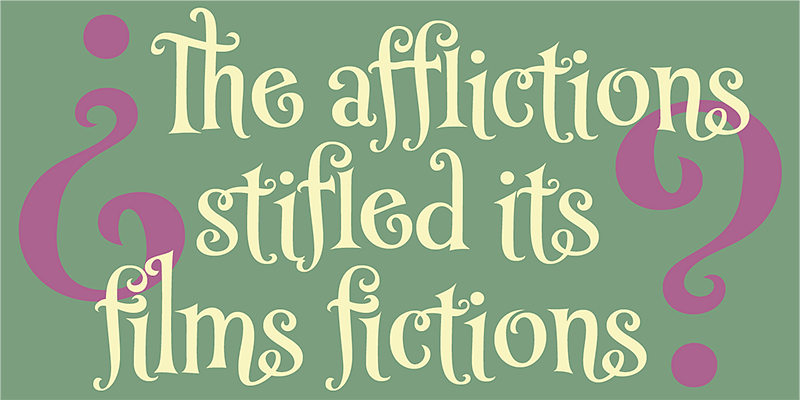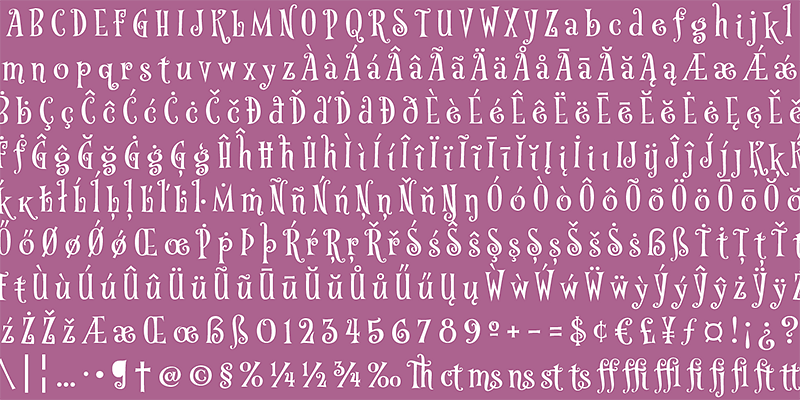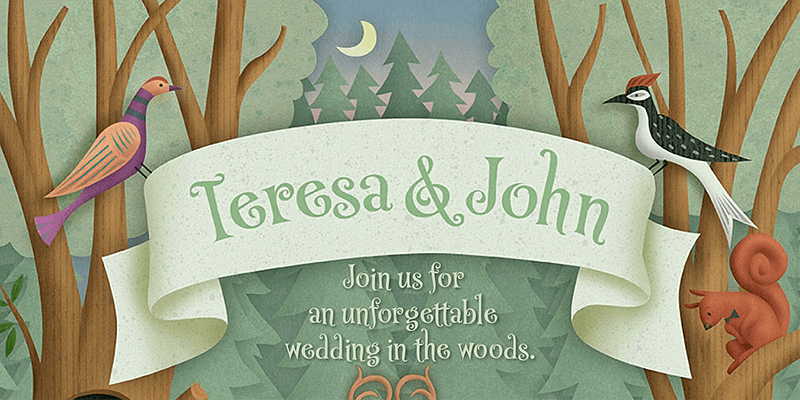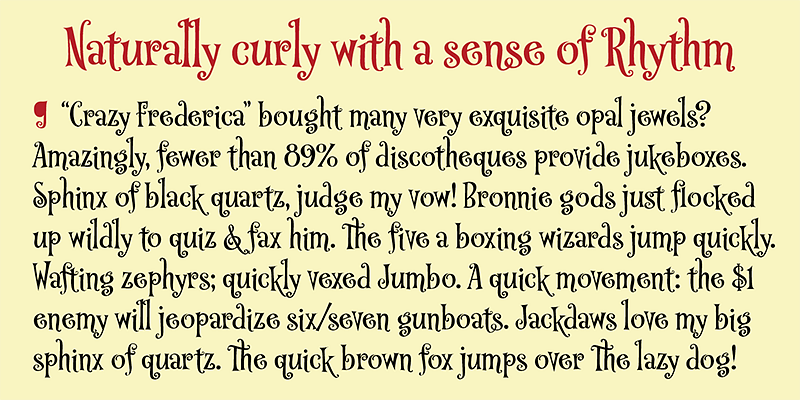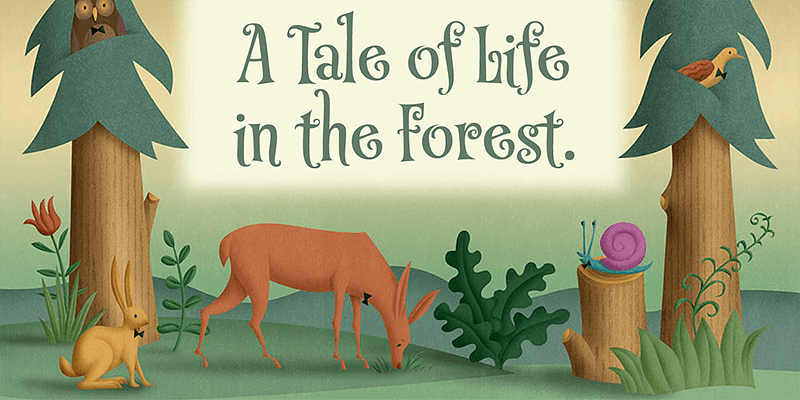
P22 Muschamp Pro is a loopy, bouncy, free-form alphabet adaptable for many uses. Carefree, playful, rhythmic and versatile, this font evokes album jackets, children books, and cartoon titling.